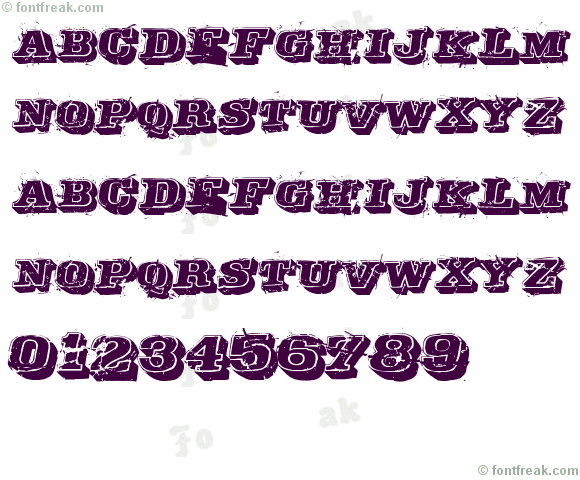
Depraved
Depraved by Rob Dobi is a striking display font that embodies a bold, edgy aesthetic. This freeware typeface features a unique blend of decorative and vintage elements, making it an eye-catching choice for a variety of design projects. Characterized by its heavy stroke weight and high contrast, Depraved showcases a rugged texture that lends a sense of grit and attitude. The letterforms are spaced in a way that enhances readability while maintaining a strong visual impact, making it perfect for any design that demands attention.
This font is particularly well-suited for use in movie posters, album covers, and promotional materials for events that aim to convey a rebellious or alternative vibe. Its distinctive style also makes it an excellent choice for graphic tees, streetwear branding, or even bar and restaurant menus that want to evoke a sense of character and flair. Additionally, small business owners looking to create memorable logos or eye-catching signage will find Depraved to be an invaluable asset.
Targeted primarily at graphic designers, content creators, and small business owners, Depraved offers versatility for those looking to inject personality into their projects. Its unique design elements allow for creative freedom, making it suitable for both digital and print applications.
What sets the Depraved font apart is its ability to combine a sense of nostalgia with a modern twist, making it a standout choice for designers seeking to make a bold statement. Whether you’re crafting immersive visuals for a punk rock band or creating striking advertisements, the Depraved font free download provides a perfect solution for those looking to push boundaries in their designs.